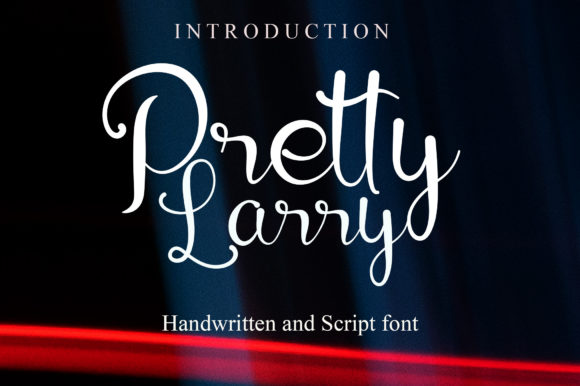
About Pretty Larry Font
Pretty Larry is an enchanting handwritten font. This versatile script font has a wide spectrum of applications ranging from greeting cards to headlines and is guaranteed to add a romantic feel to your next project.